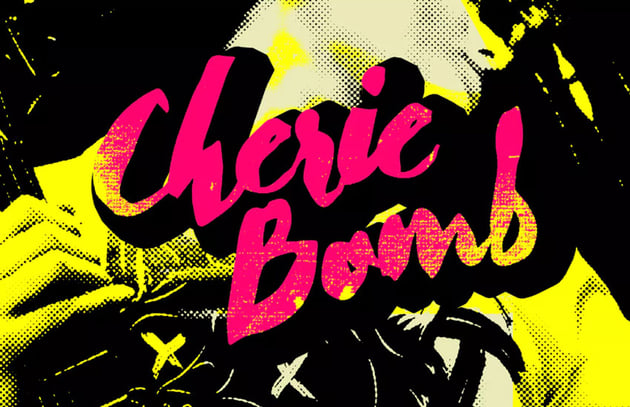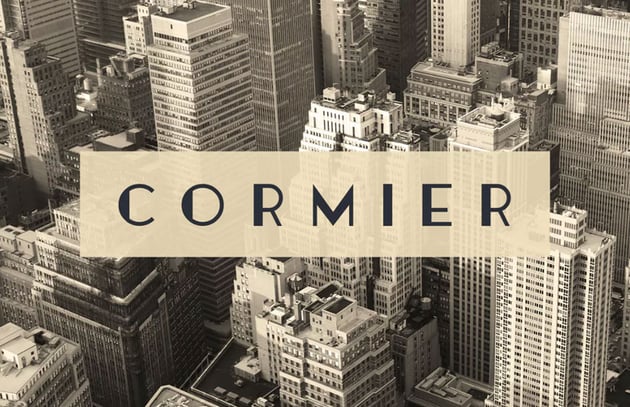
The 10 Best Decorative Fonts to Use on Your Website
The fonts we choose play a major role within a website. The right font combination can make your site stand out from the crowd. In addition, they tie in with your brand to deliver just the right message.
Among the various font styles out there, decorative fonts are a great choice if you’re looking to make an impact. They offer a wide variety of looks ranging from elegant, to bold and all the way to avant-garde.
“Use decorative or display typefaces sparingly, such as on headlines and short copy.” – Pablo Stanley, The Design Team
Today, we’ll show you everything you need to know about using decorative fonts on your website in three simple parts. First, we’ll look at the areas of a website where these fonts tend to work best. The second part is a crash course in the technical details with regards to installing and using them.
Where to Use Decorative Fonts
As the term suggests, a decorative font is quite often meant to dress up specific design elements. Ideally, this is somewhere where they’ll call attention to an item of interest.
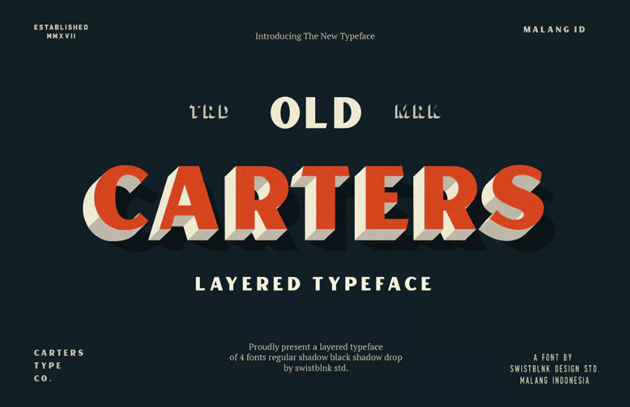
What that means for web designers is that these fonts should almost never be used as body text. Aesthetically speaking, they’re often designed to be viewed at larger font sizes. Thus, they can become very difficult to read on a smaller scale.
Not to worry, though! There are still plenty of places where decorative fonts are a great fit. Use them in hero areas or as headings within your content (page titles may be especially effective). You might also look to integrate them into calls to action, or even your logo.
Now that we know a bit more about where and how to use decorative fonts on our website, let’s take a look at some outstanding examples. Each one has something unique to offer.
Helios
Available in both rounded and square-cornered versions, Helios can bring a high-tech look to your website. It would be a great fit for startups, developer portfolios and sites focused on science.
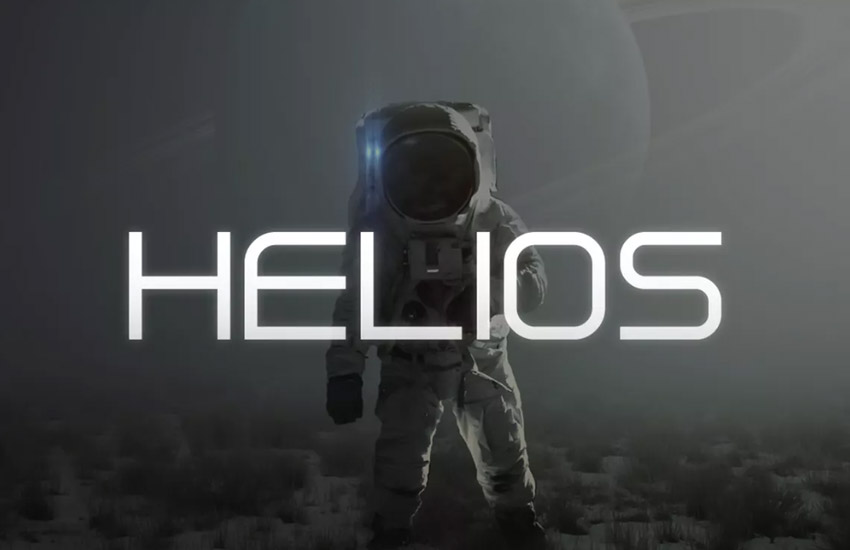
Black Night - Horror Typeface
Perfect for getting into the spooky spirit, Black Night could be used for a Halloween-themed landing page or even a web comic. It’s fun, easy to read decorative fonts and will add personality to any website.
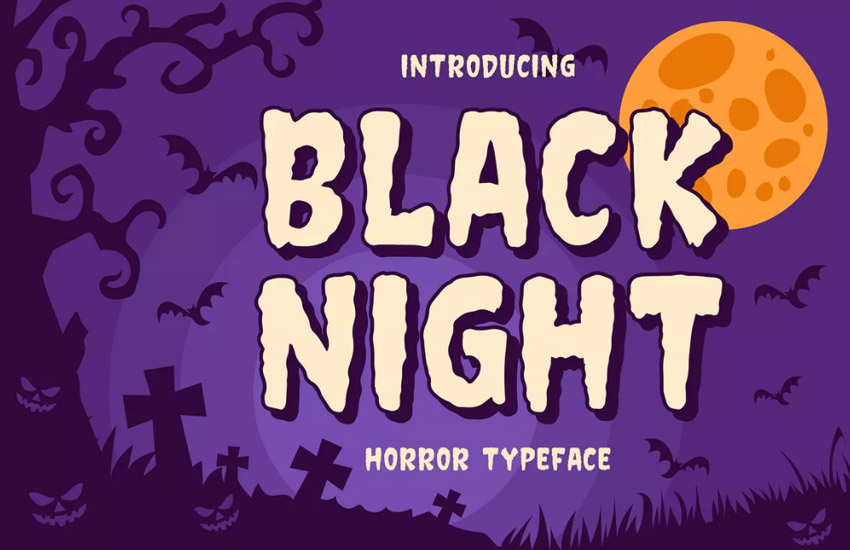
Whale of a Time Font Duo
Whale of a Time brings a light and uplifting feel. Available in striped or solid fill, either style would go great with hand drawn illustrations or websites focused on children.
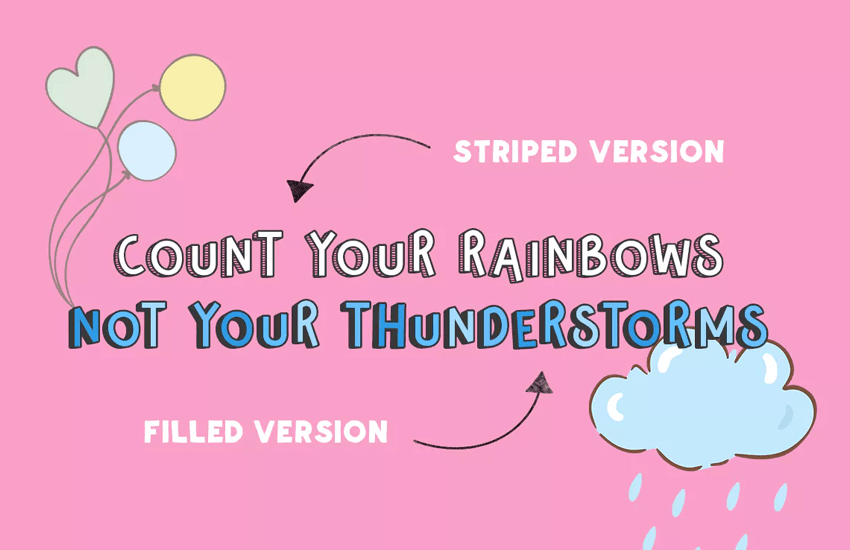
Macloney - Bold Serif Font
This bold and sophisticated serif font offers a surefire way to get a user’s attention. Use it for page titles, headlines or other spots where you need to attract eyeballs.
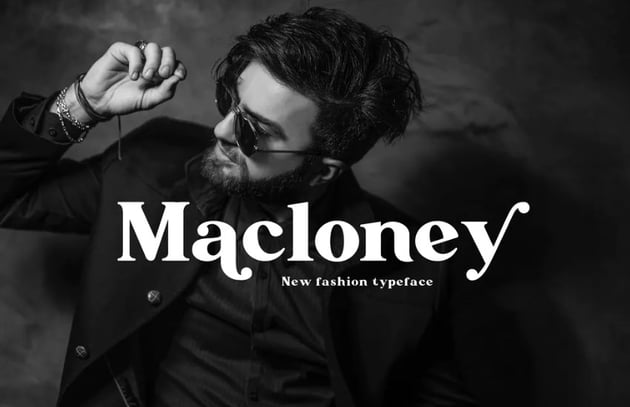
The Roseberry - Font Trio